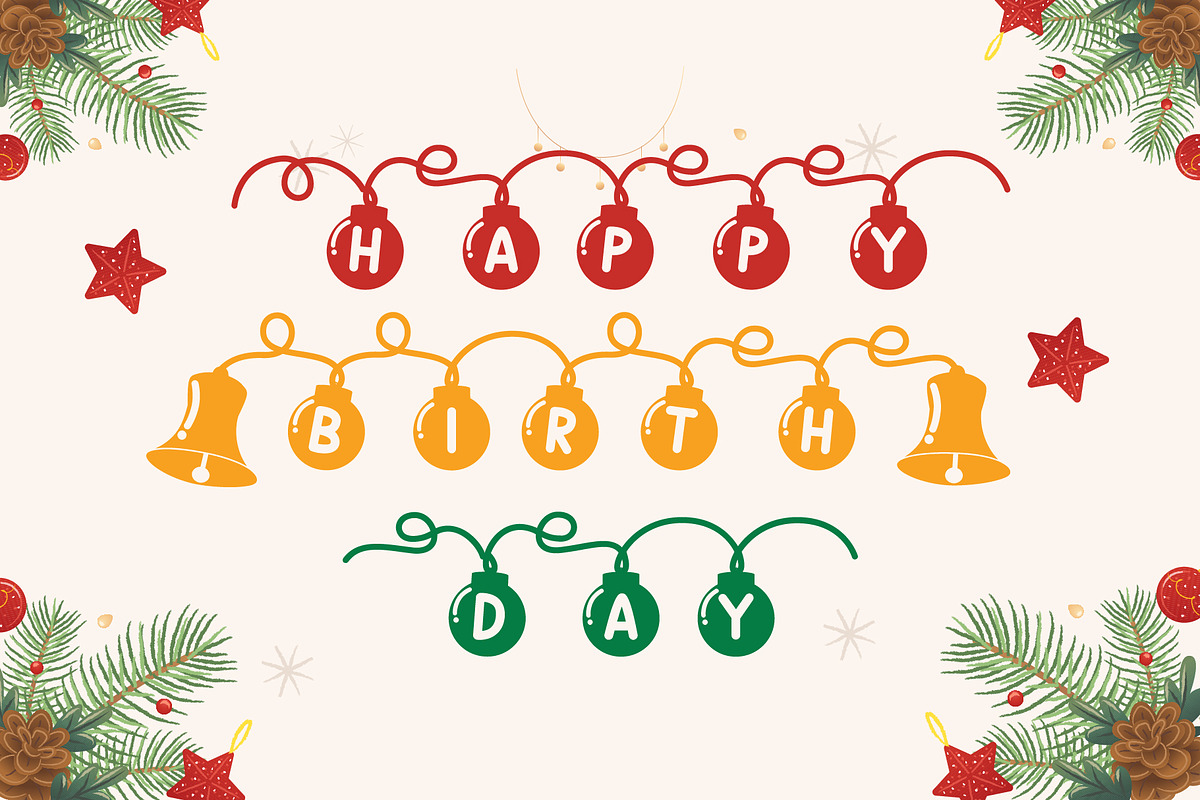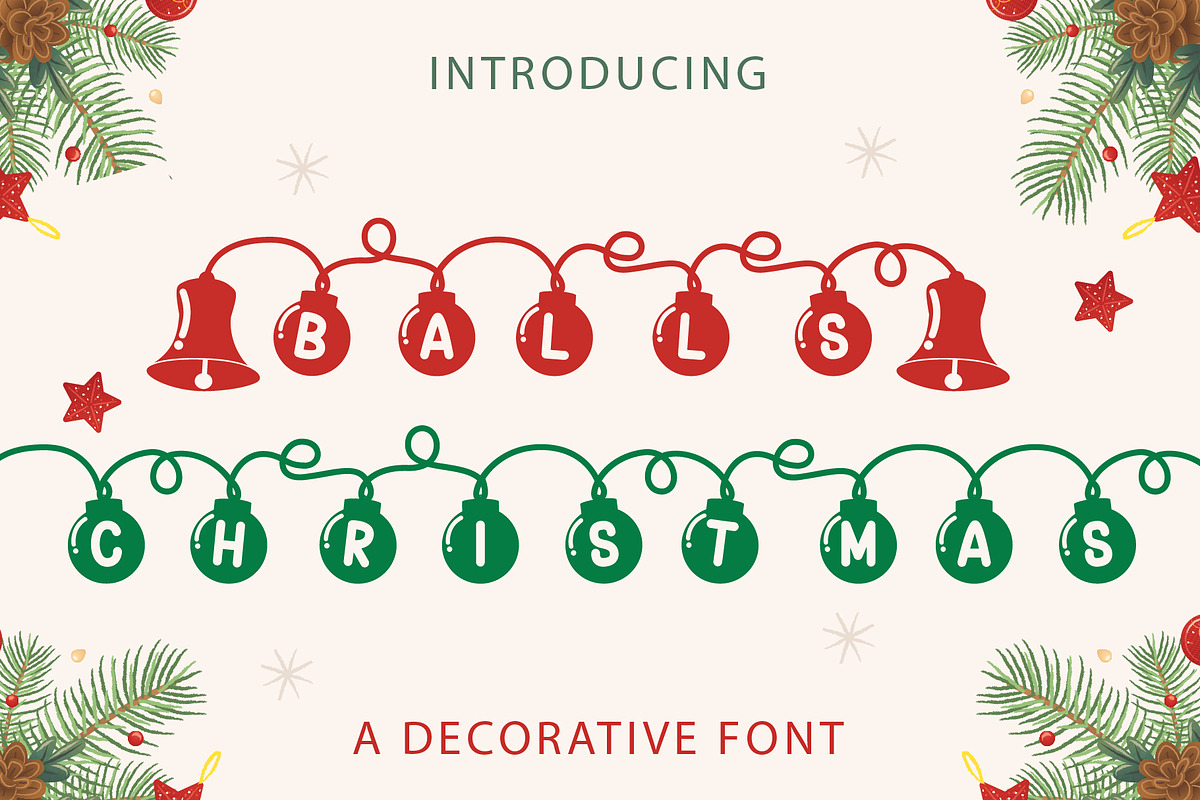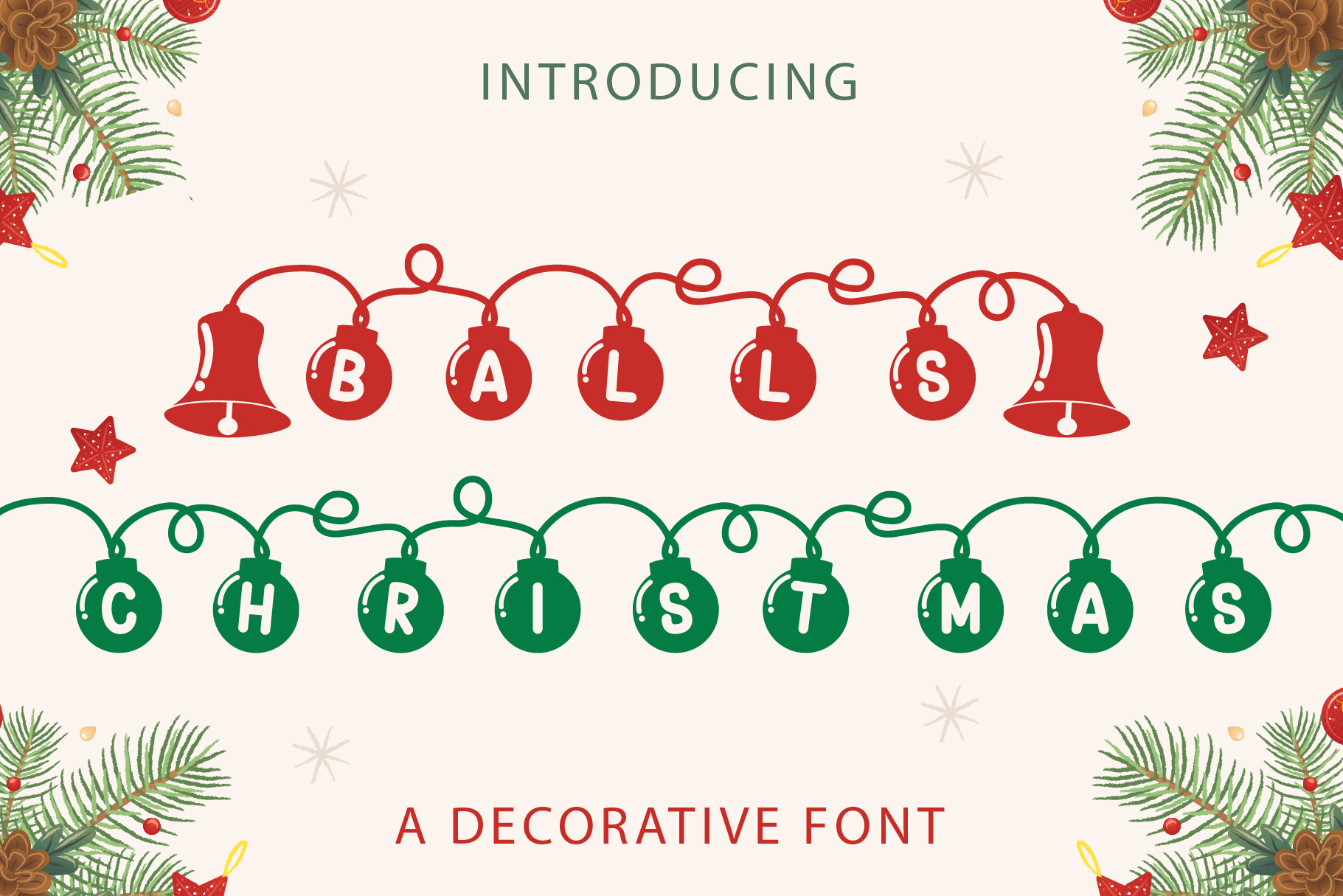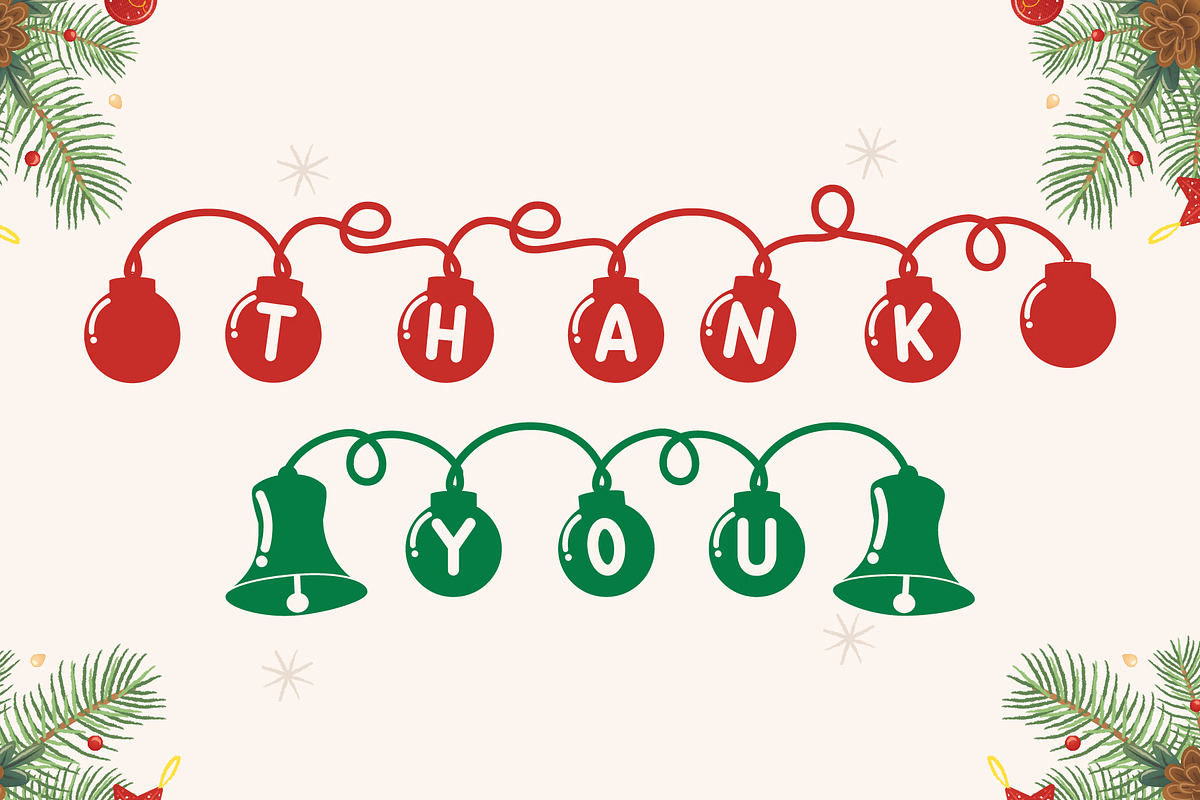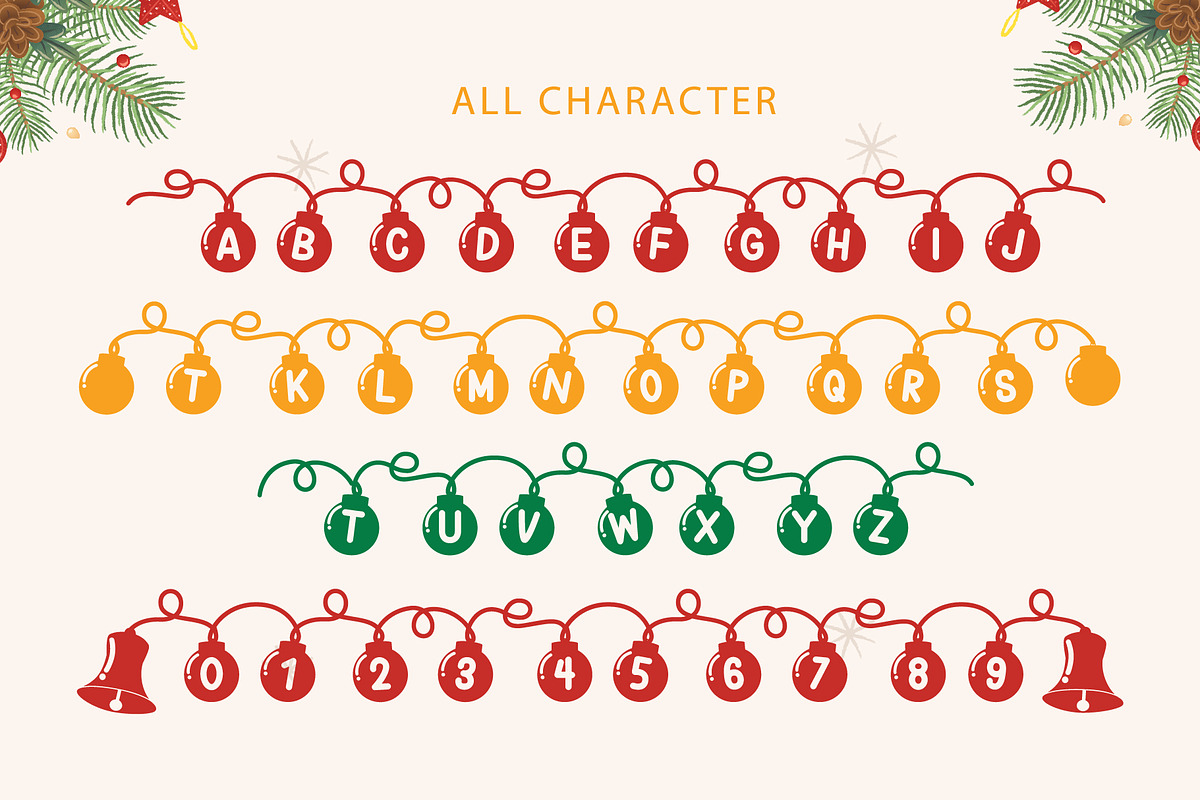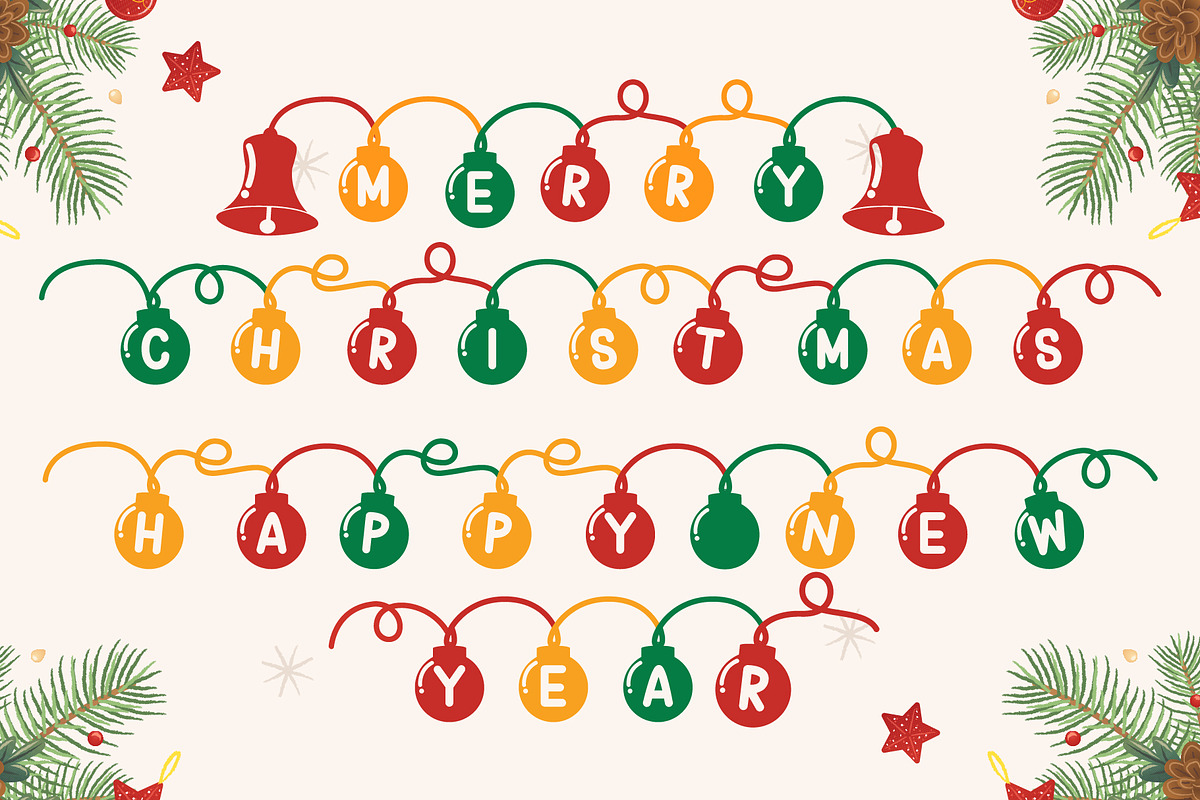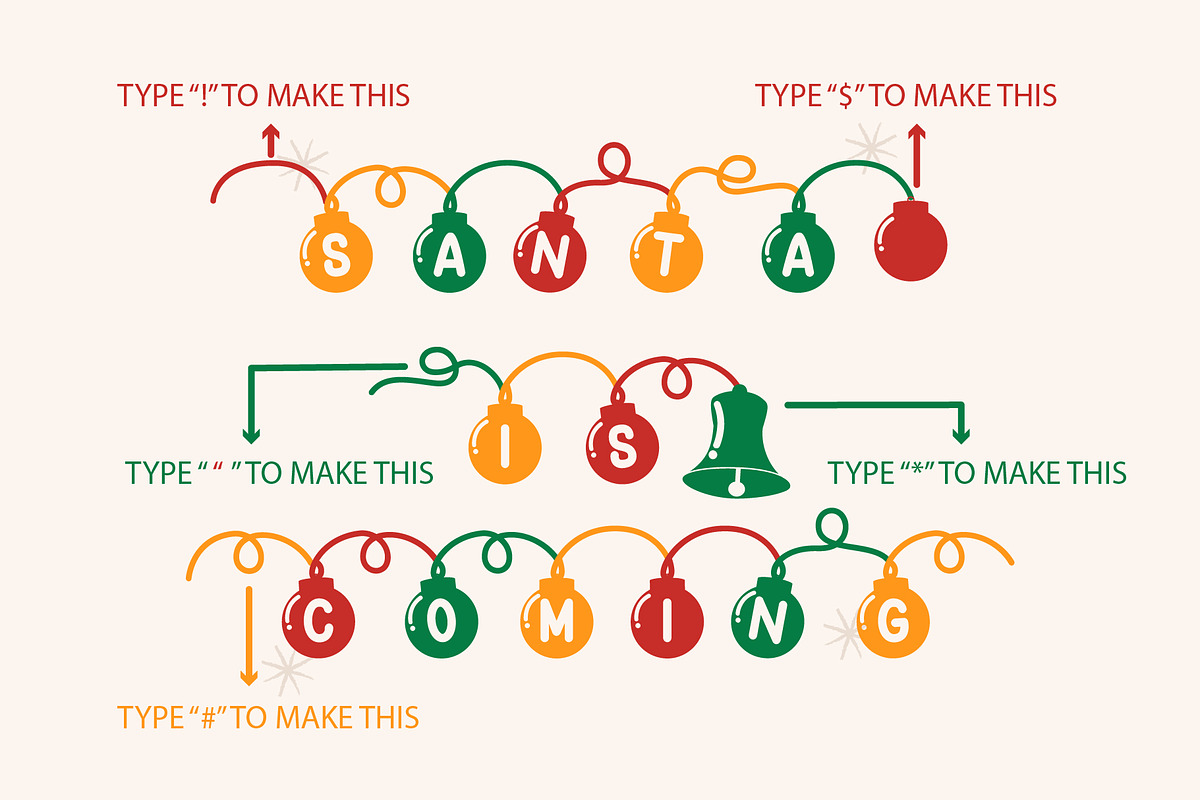
Balls Christmas - Decorative Font
Balls Christmas is a beautiful and unique decorative display font perfect for Christmas. This font is inspired by stars and lights on Christmas, which makes it suitable for creating cute holiday t-shirts, stickers, cover books, children’s books, social media posts, and much more!